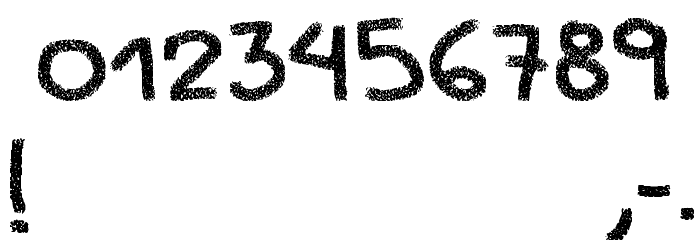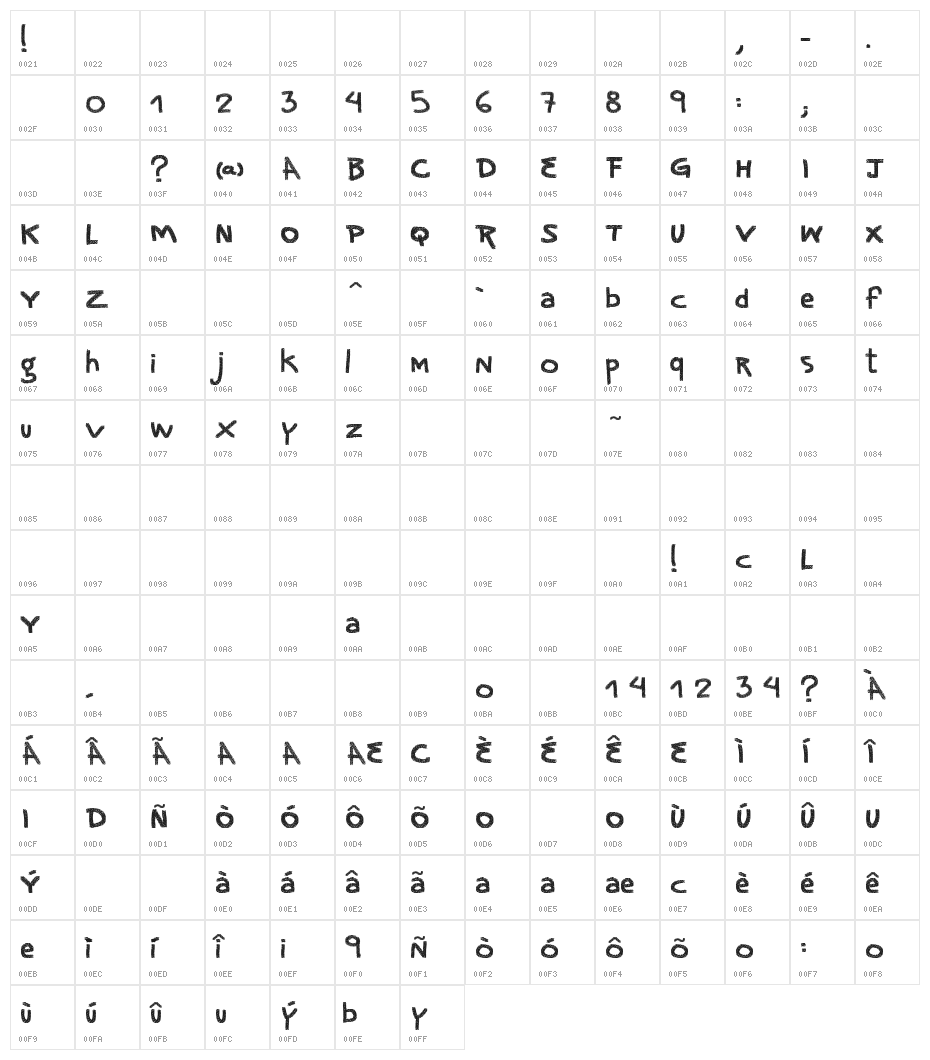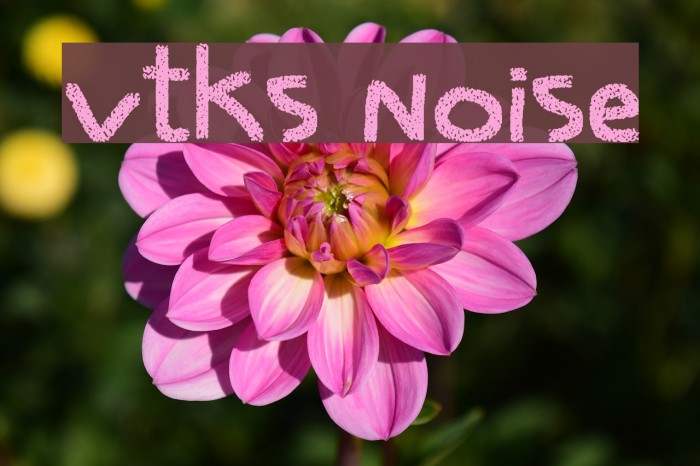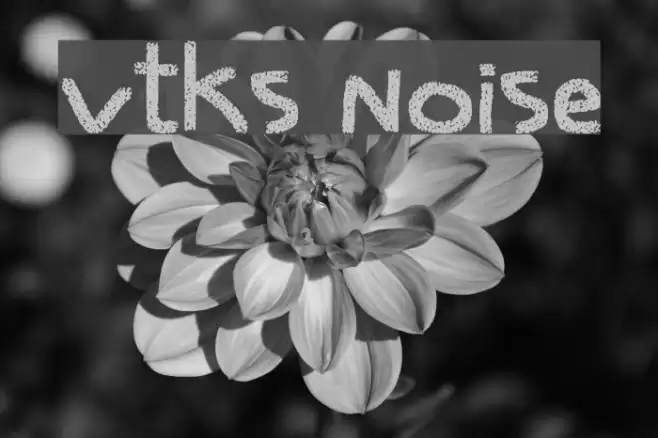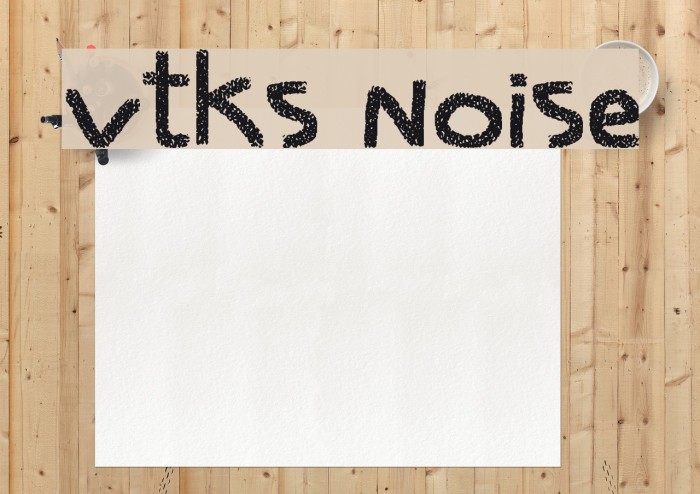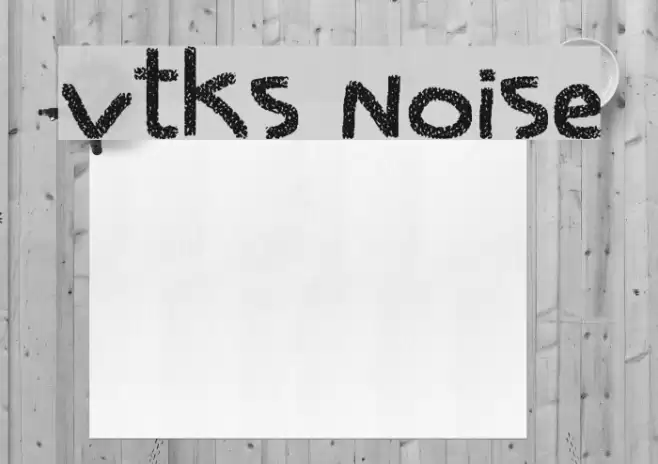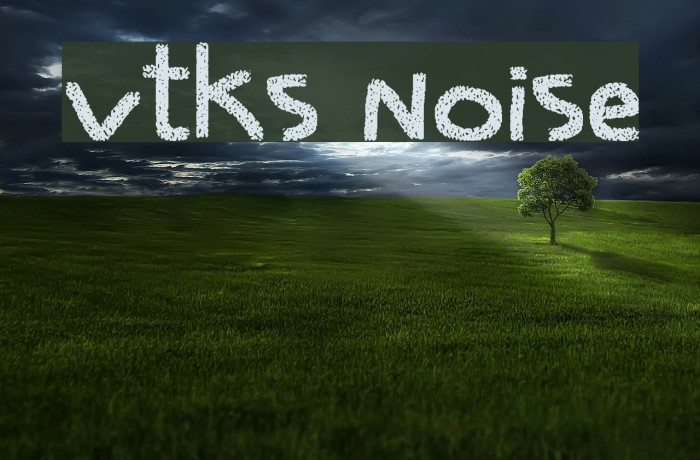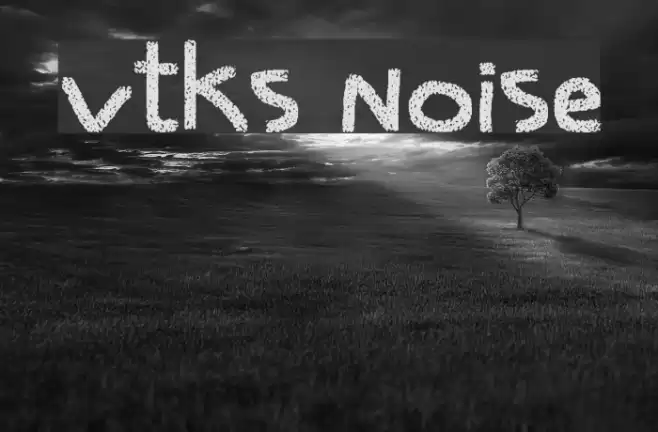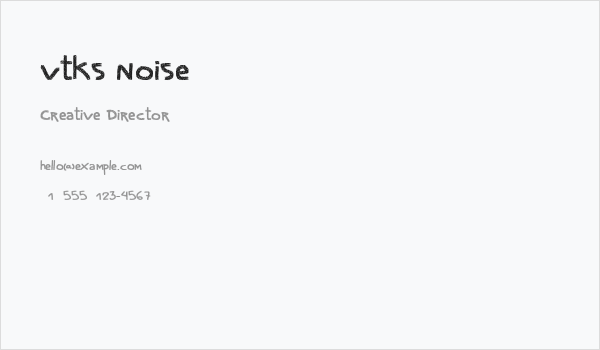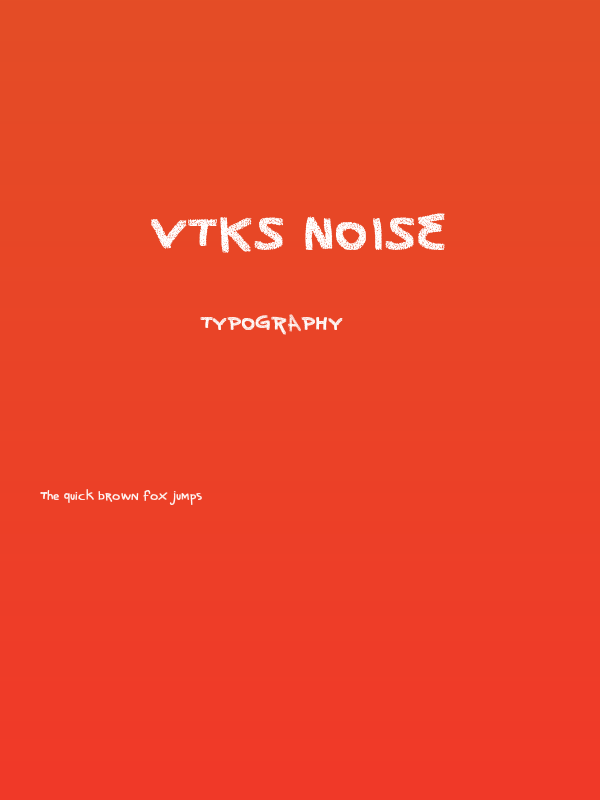
vtks noise Font
vtks noise Description
This font features a bold and textured appearance, reminiscent of a hand-drawn style with a rough, grainy texture. The characters are irregular and playful, giving off an energetic and dynamic vibe. The uppercase and lowercase letters maintain a consistent style, with slightly exaggerated curves and angles that add to the font's unique personality. Numbers and special characters follow the same design principles, ensuring a cohesive look across all elements. This font is ideal for projects that require a bold statement or a creative touch, such as posters, album covers, or artistic branding.
| Proposed Projects | Ideal for posters, album covers, artistic branding, and creative projects. |